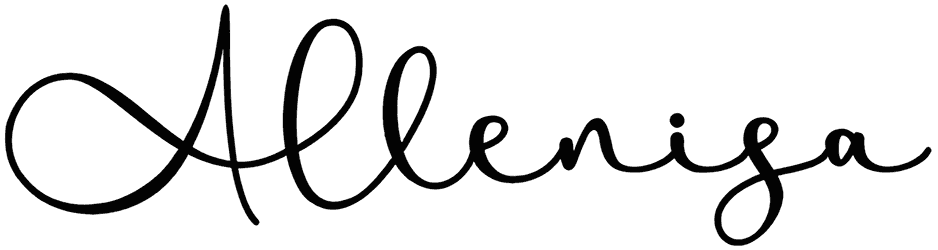
Allenisa Font
If you are looking for a handwritten font to flourish your design, Allenisa getting you exactly what you want. The minimalistic style with pretty swashes and inner cuteness offers a charming, fresh, and playful touch to the work, making it the best choice for branding, adolescent apparel, fairy tale book covers, personal logos, and creative projects.
This font doesn’t include some of the punctuation and it’s difficult to read due to its complex cursive structure.